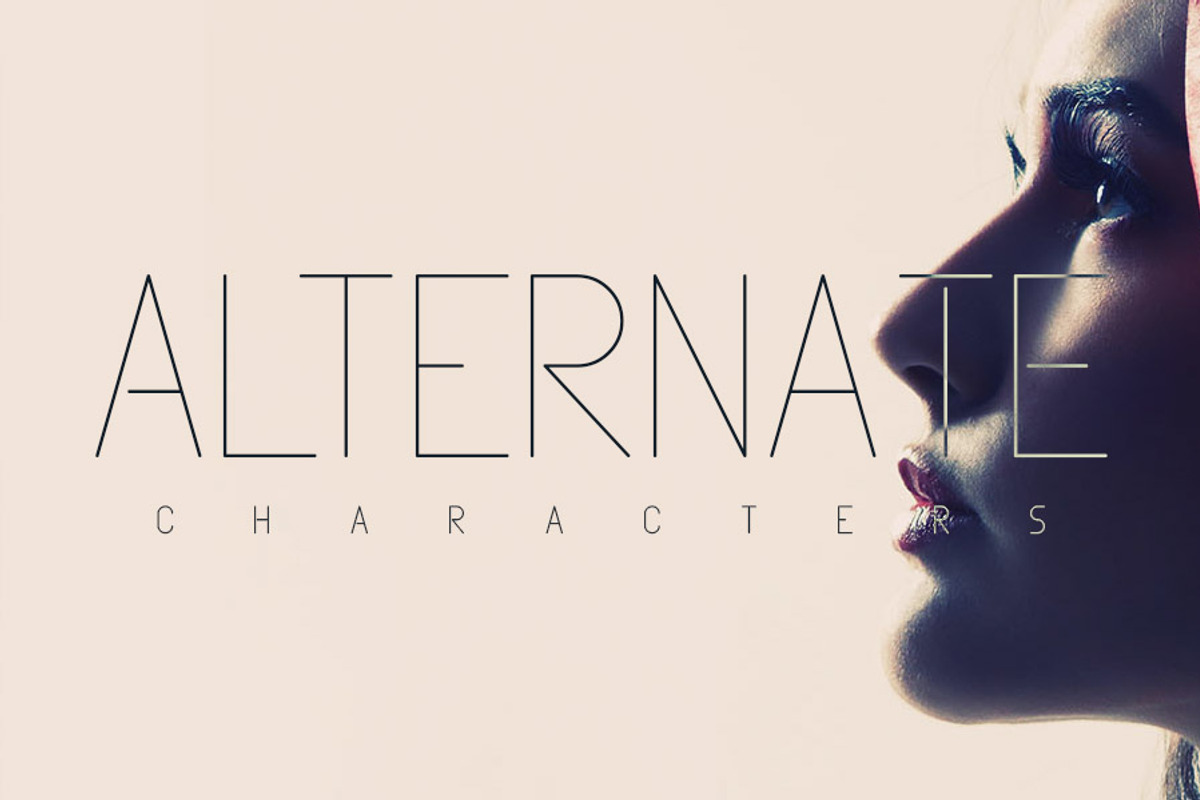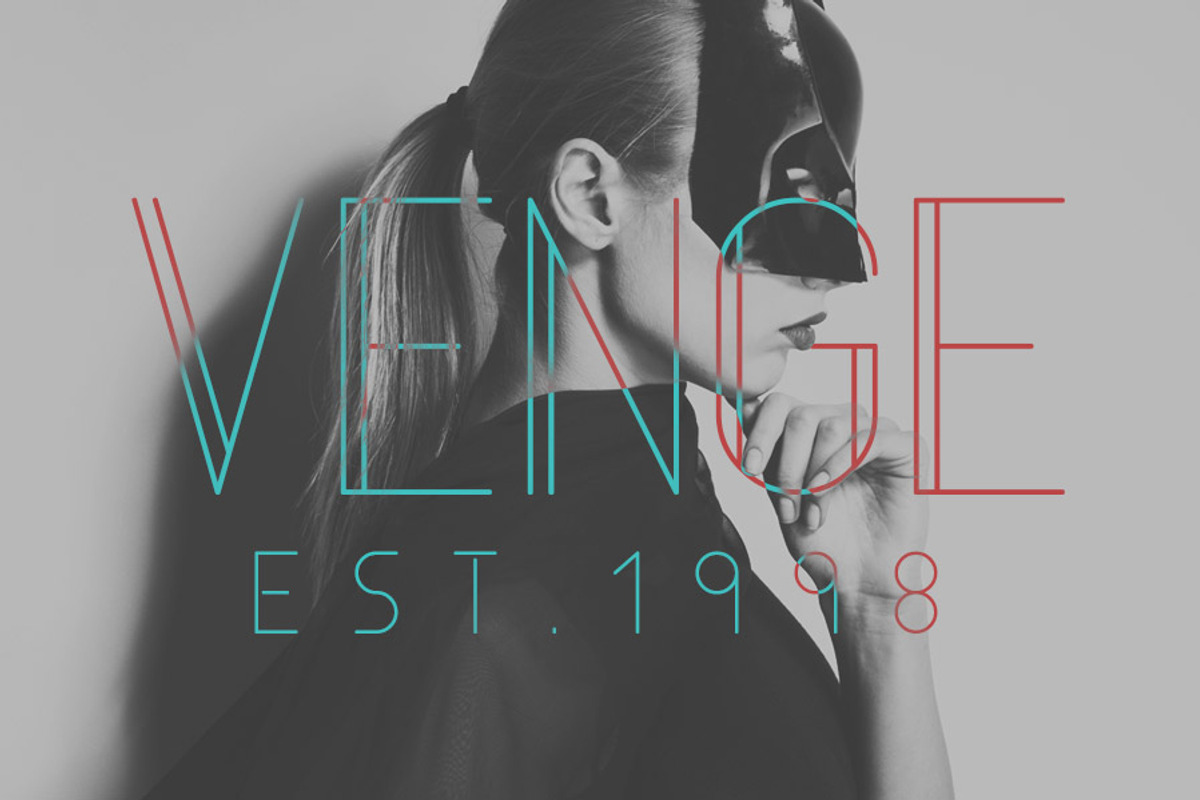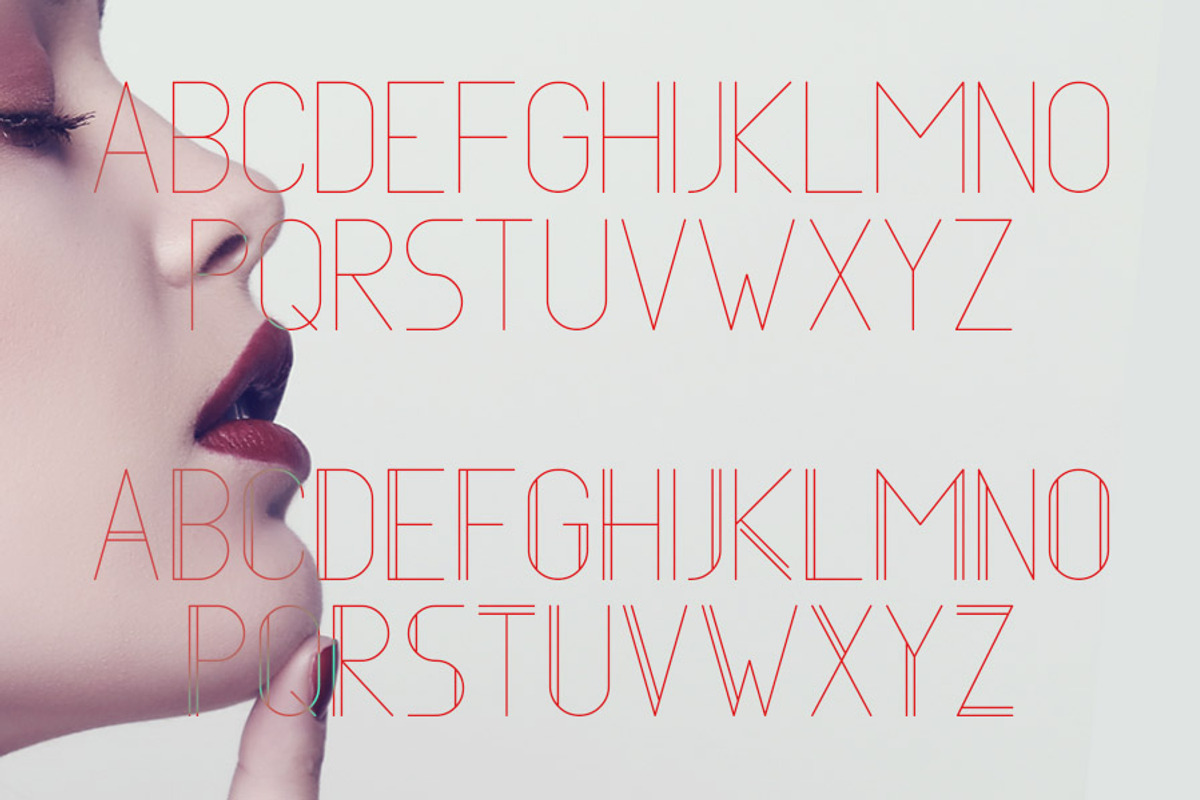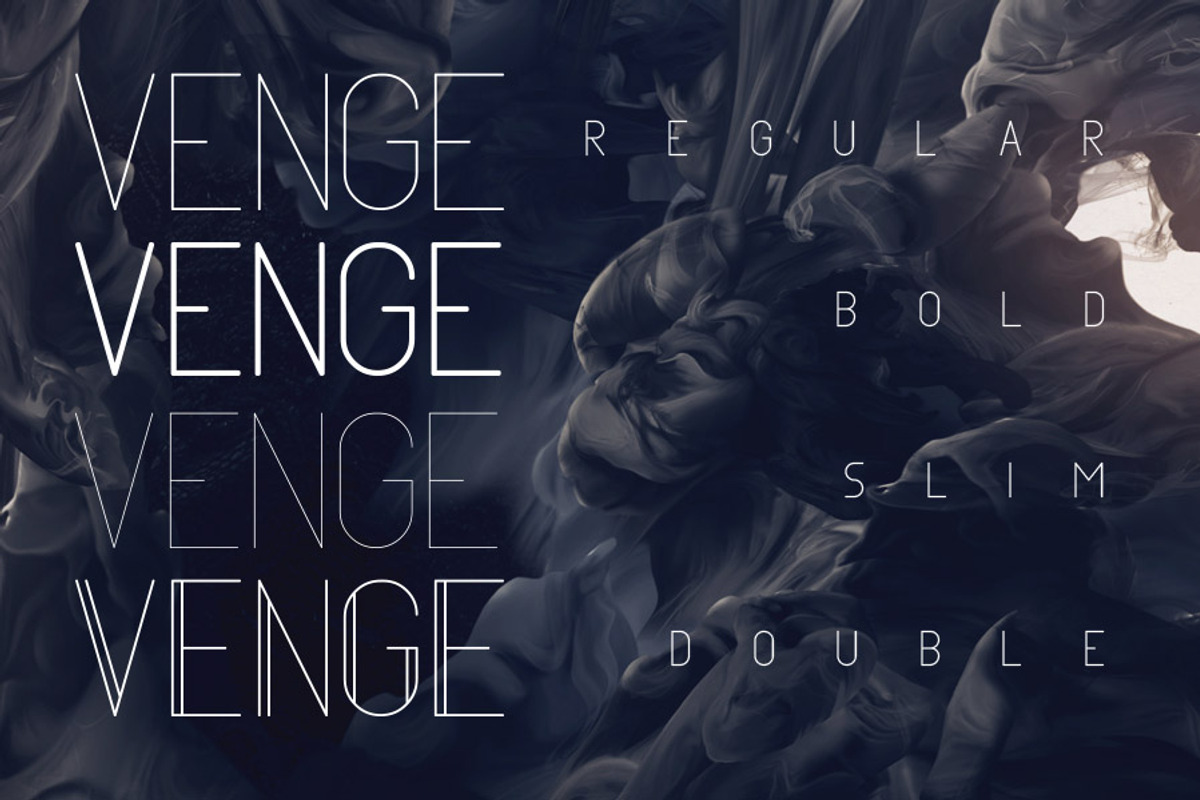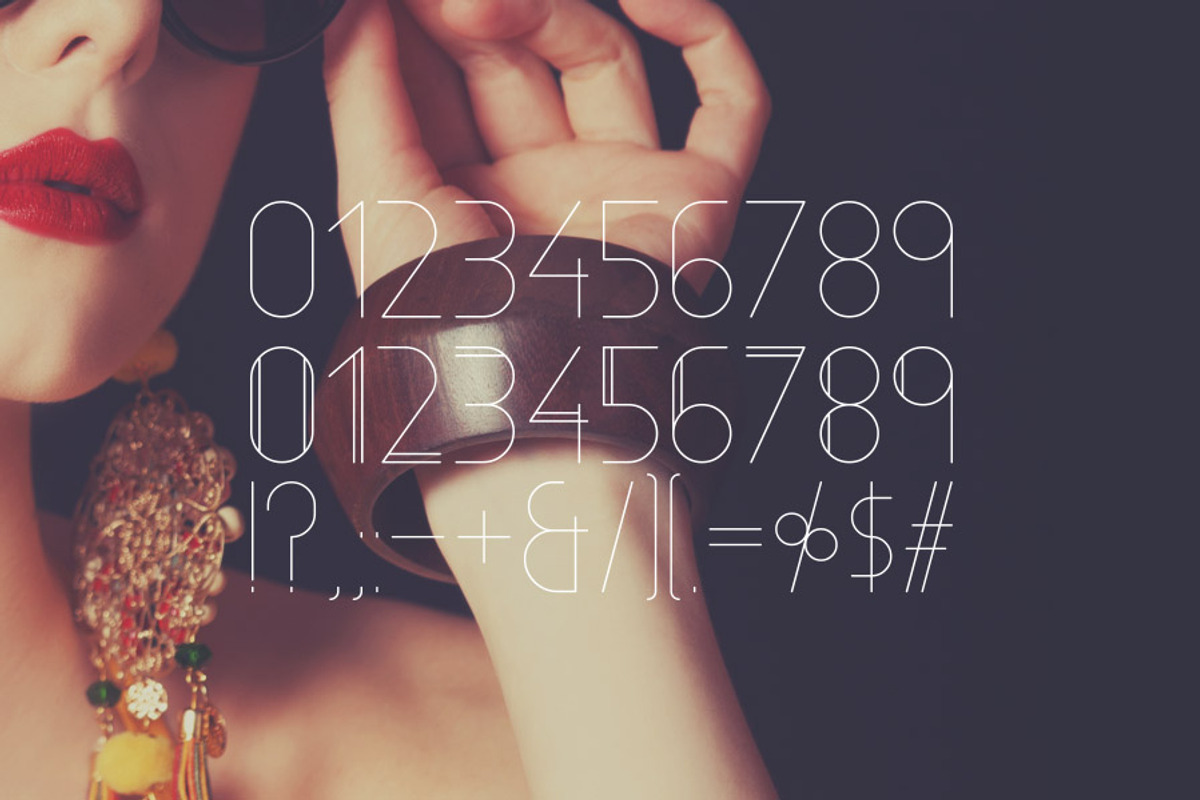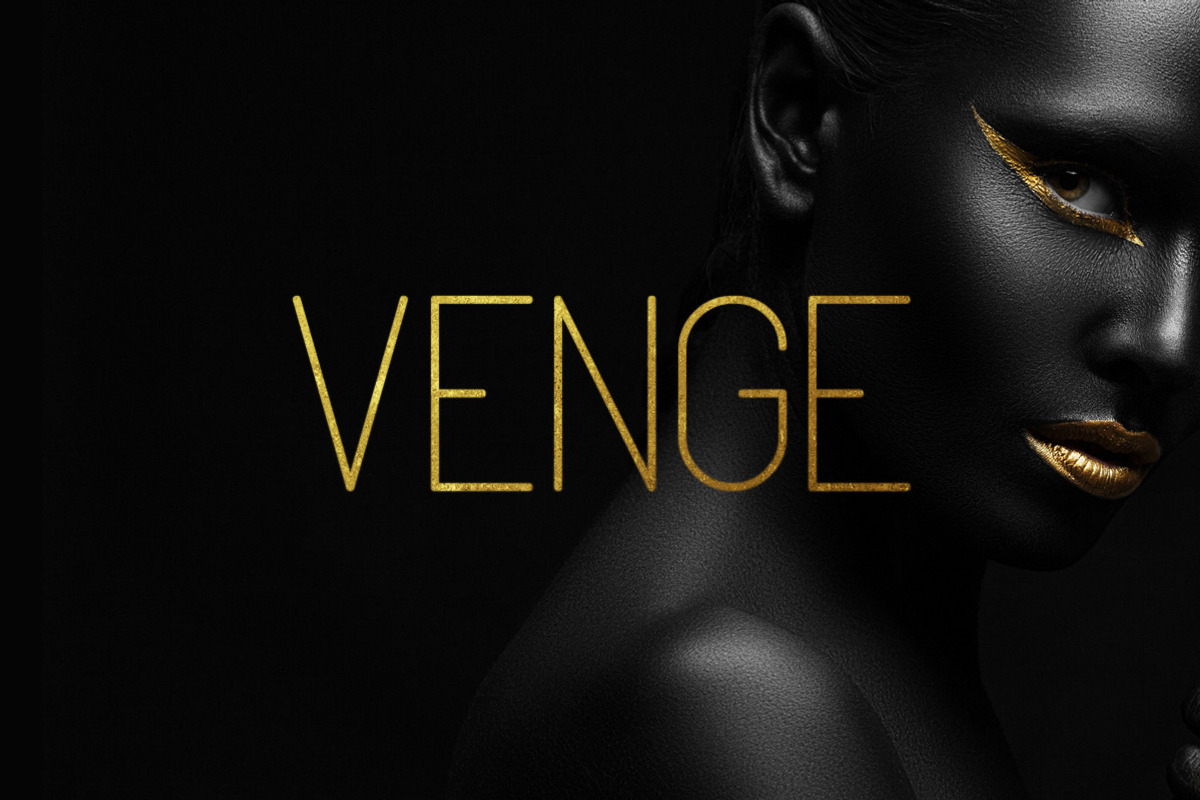
Venge Typeface
Venge Typeface by Tugcu Design Co. is a font selected for branding, posters, packaging, typography.
- It includes uppercase English letters, some alternate letters which you can toggle with Caps Lock, numbers and punctuation.
- Venge Bold Regular
- Venge Regular Regular
- Venge Double Regular
- Venge Slim Regular
Why Venge Typeface is worth a look
Venge Typeface by Tugcu Design Co. fits naturally into Branding, posters, packaging, typography.